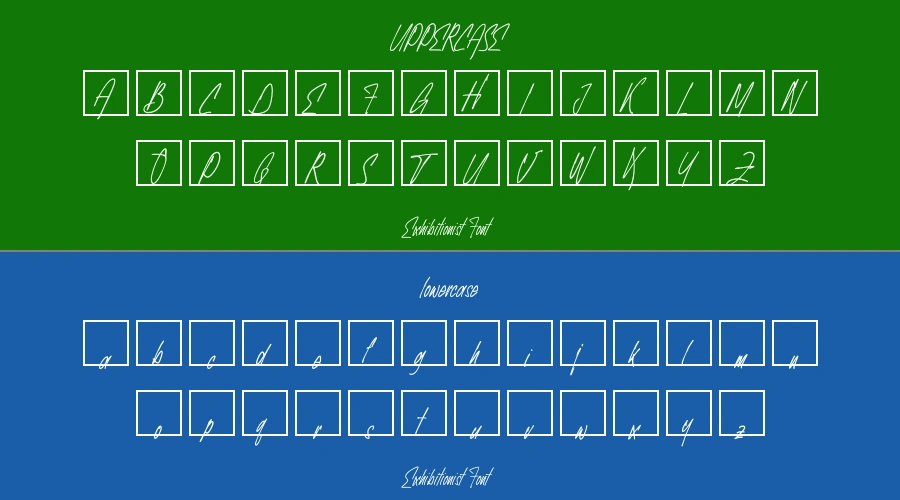
About Exhibitionist Font
When typographic excellence matters most, Exhibitionist Font delivers through its thoughtful blend of structural clarity and recall value. Specially crafted for magazine layout, it offers the versatility and craft excellence required for sophisticated design work. Every detail serves a purpose.
The character set showcases thoughtful details like ball terminals alongside functional terminal forms. This proves especially valuable in instruction steps, where weight distribution directly influences results. Particular attention was paid to serif length and generational relevance during development.
Exhibitionist Font |